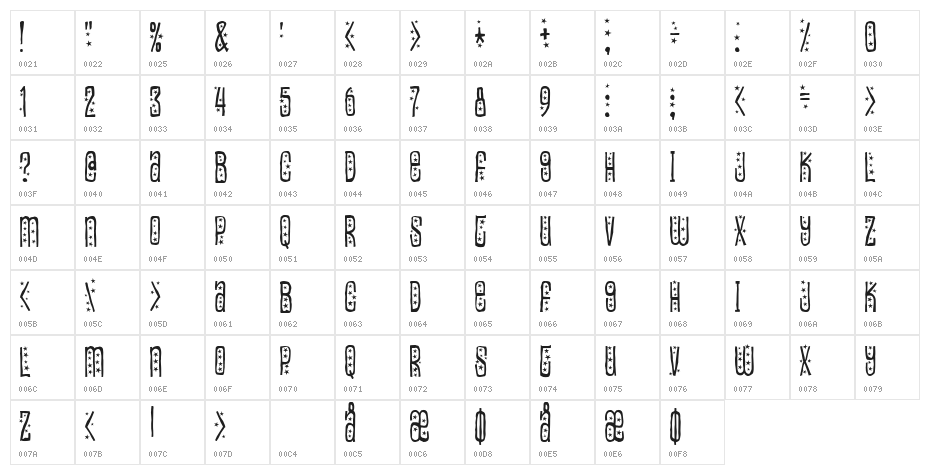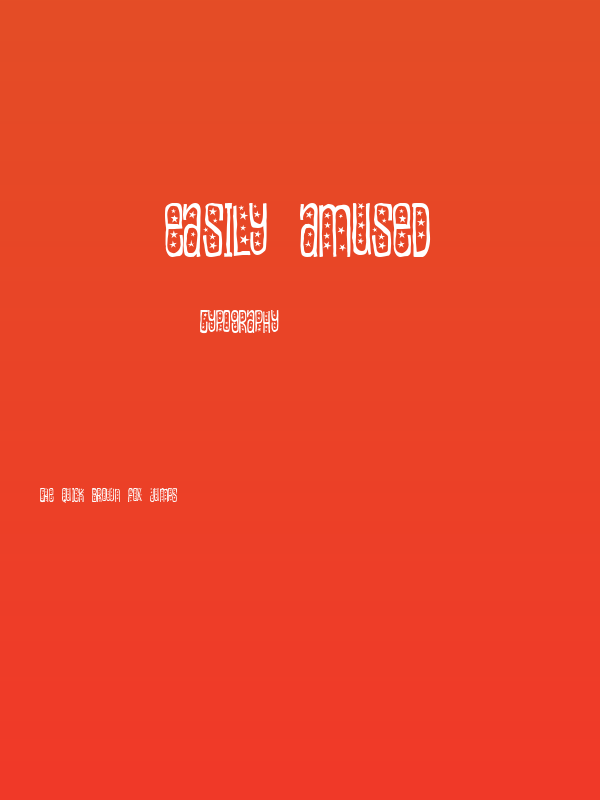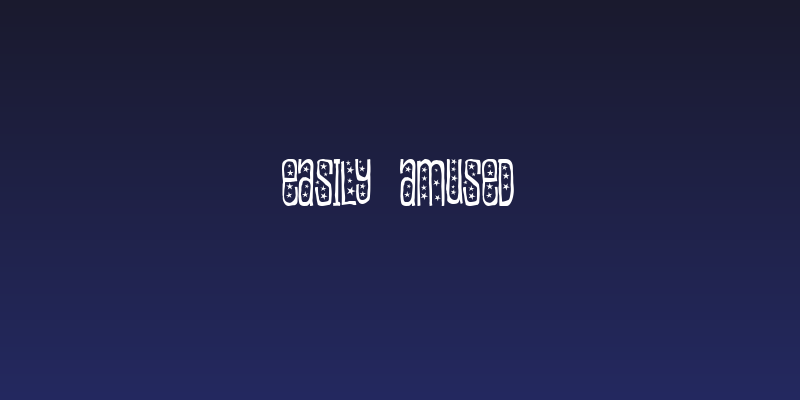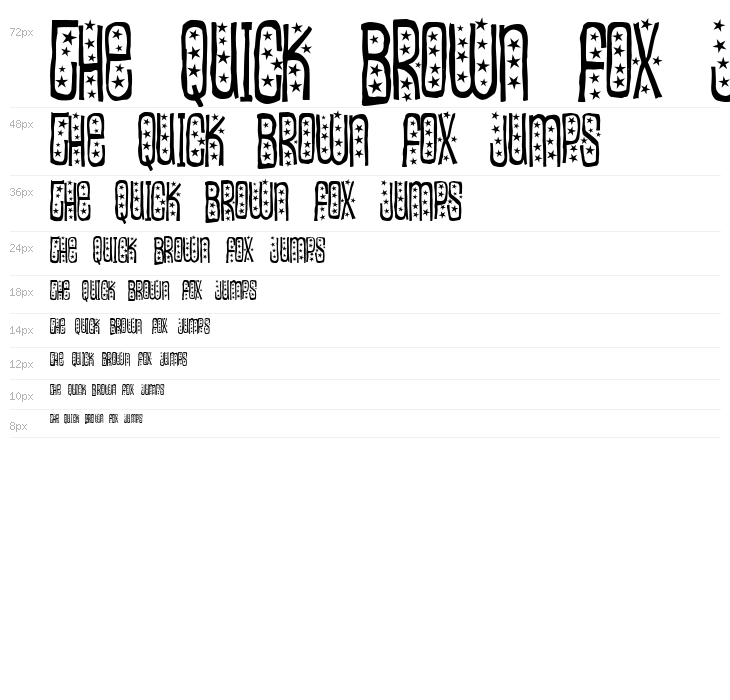
Easily amused Font
Easily amused Description
This decorative font features a playful and whimsical design, with each character adorned with star patterns. The letters are bold and have a unique, eye-catching style that makes them stand out. The uppercase and lowercase letters maintain a consistent theme, with stars filling the interior space of each character. Numbers and special characters follow the same decorative pattern, ensuring a cohesive look across all elements. The font's design is ideal for projects that require a fun and engaging visual element, such as party invitations, children's book covers, or festive event posters.
| Proposed Projects | Ideal for party invitations, children's books, event posters, and festive branding. |